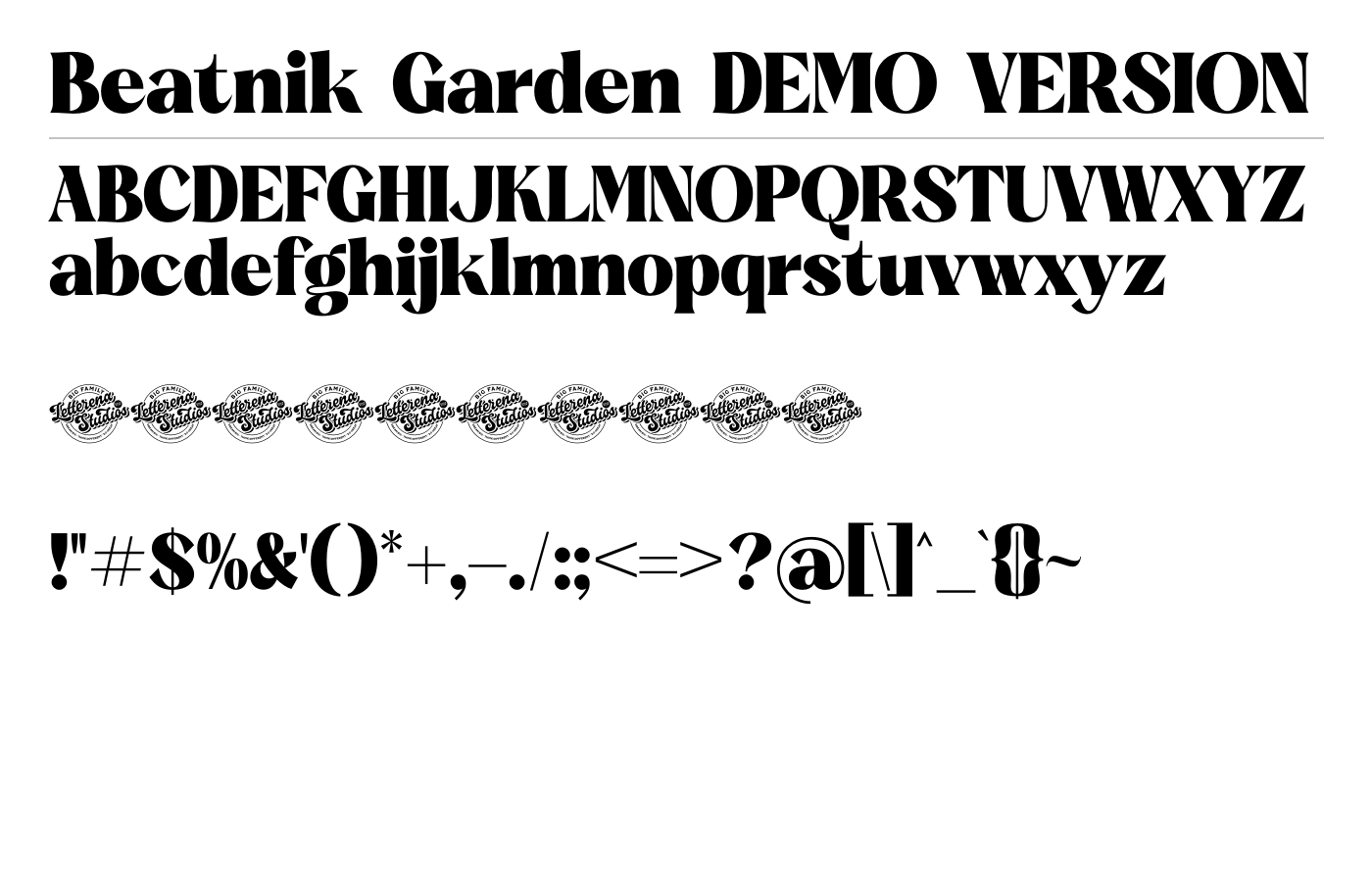
Beatnik Garden DEMO VERSION is a bold serif font with a high contrast between thick and thin strokes, featuring strong, elegant letterforms and distinct bracketed serifs. Its classic yet expressive style makes it ideal for sophisticated branding, headlines, and editorial design where a vintage-inspired, impactful look is desired. This font works best to convey a sense of luxury and timelessness while maintaining excellent readability in larger display sizes.
Beatnik Garden DEMO VERSION Font
About Beatnik Garden DEMO VERSION Font
| Font family | Beatnik Garden DEMO VERSION Font |